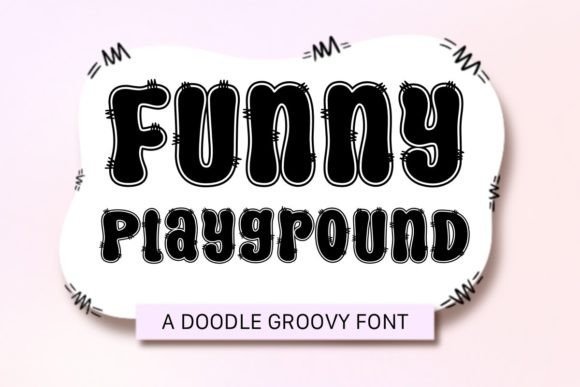
Unleash Your Creativity with the Funny Playground Font
Have you ever sat at your desk, staring at a blank page, trying to come up with the perfect design for your next project? You’re not alone. We’ve all been there, searching for that one font that will bring our ideas to life. That’s where the Funny Playground Font comes in – a fun, groovy decorative font designed to add a playful touch to your designs.
This delightful font is perfect for creating a wide range of designs, from social media posts and cards to t-shirt designs and stationery. Its casual charm and doodle-inspired design make it an instant favorite among designers. With the Funny Playground Font, you can bring a smile to your audience’s faces and take your creative ideas to the next level.
Funny Playground Font Key Features
- Character Count: The font includes over 400 characters, including letters, numbers, punctuation marks, and special symbols, making it suitable for a variety of applications.
- Unique Characteristics: Funny Playground Font features a playful, handwritten style with irregular lines and subtle imperfections, giving it a unique and whimsical feel.
Review: Funny Playground Font
Overall, I think the Funny Playground Font has a lot of potential, but it also has some areas where it falls short. ✨ The unique, playful style of the font is definitely its strongest feature. The combination of rounded edges and irregular shapes creates a fun and whimsical feel that’s perfect for projects that need a lighthearted tone.
One of the things I like about the Funny Playground Font is its flexibility. It works well in a variety of contexts, from digital displays to print materials. It’s also a great choice for projects that require a mix of seriousness and playfulness.
While the Funny Playground Font has a lot of strengths, it also has some limitations that may make it less suitable for certain projects. ⚠️ Here are a few areas where the font falls short:
- Limited character set: The font’s character set is not as comprehensive as some other fonts, which may make it difficult to use in projects that require a lot of special characters or diacritics.
- Not suitable for formal projects: The font’s playful style may not be suitable for formal projects or situations where a more professional tone is required.
Overall, I think the Funny Playground Font is a fun and versatile choice for projects that need a lighthearted tone. While it has some limitations, it’s definitely worth considering for the right project.
The Funny Playground Font is perfect for adding a playful touch to your designs. Use it for:
- Playful social media graphics and ads
- Whimsical greeting cards and gift tags
Remember to use the font in moderation and balance it with other fonts and design elements to avoid overwhelming your audience.